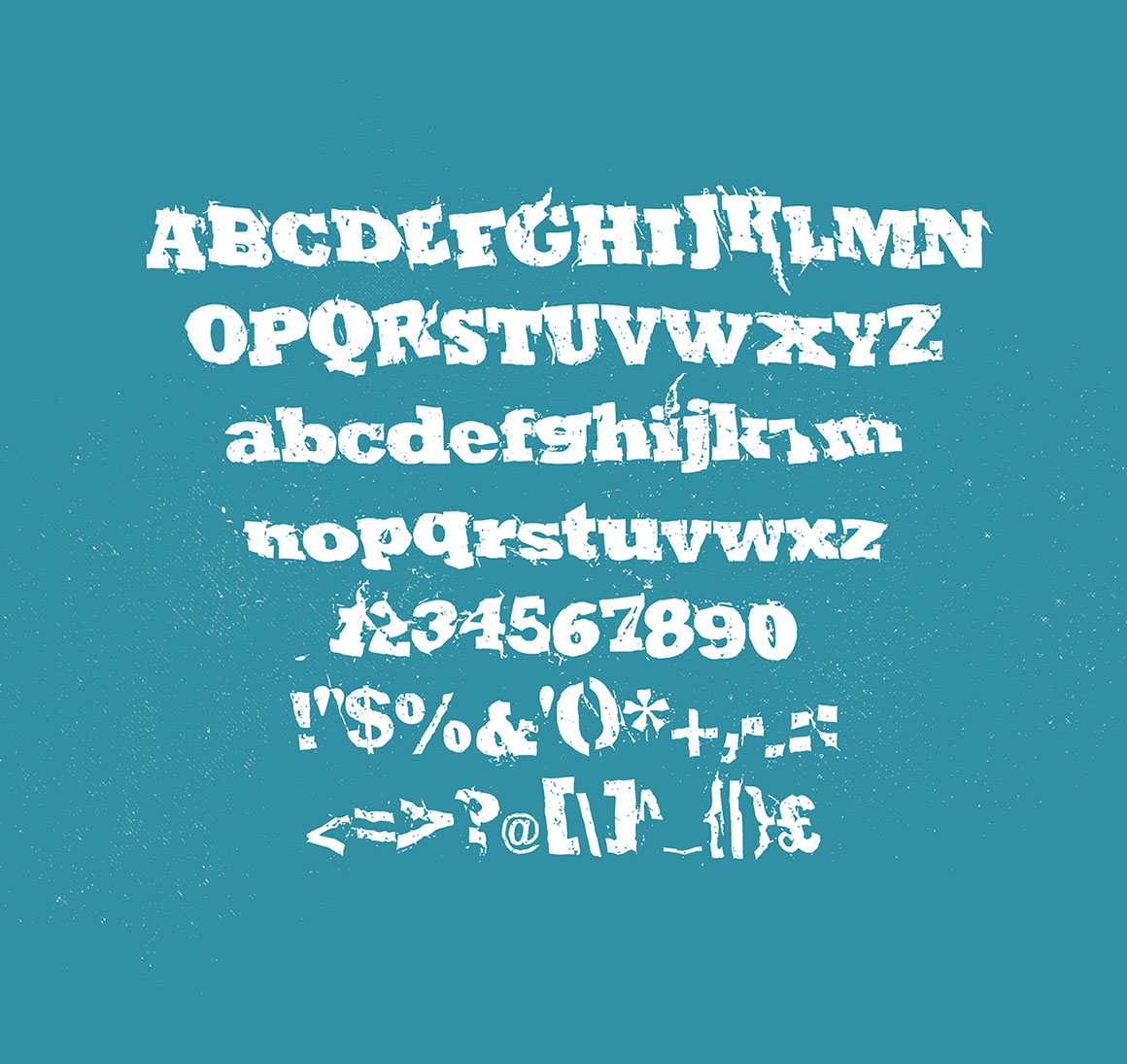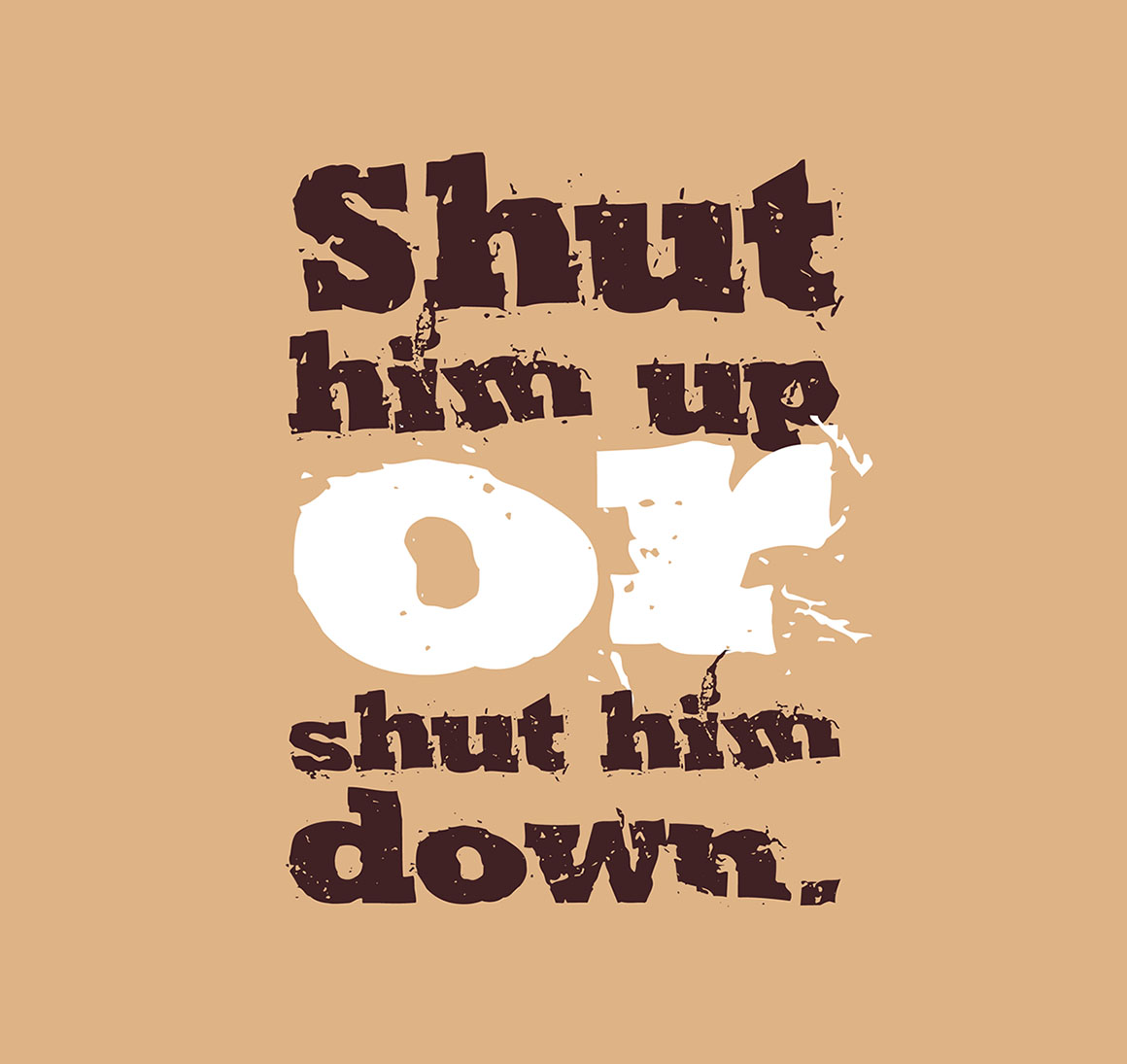
Repo Pocket Slab Serif – Free Font
This cool grunge style custom font is from Carl Seal. With unique grunge style is great for your new creative projects. Download and enjoy ;)